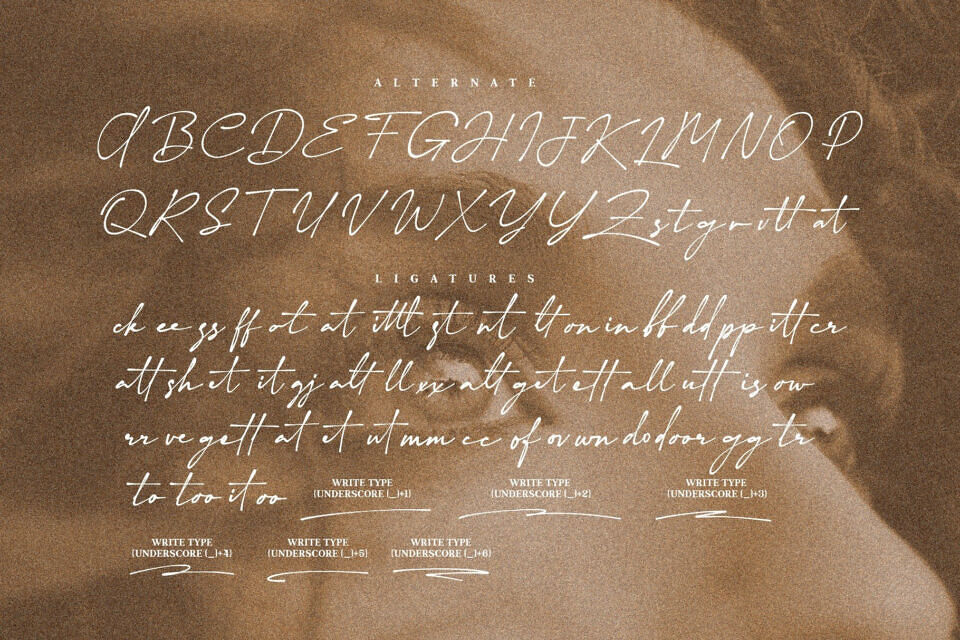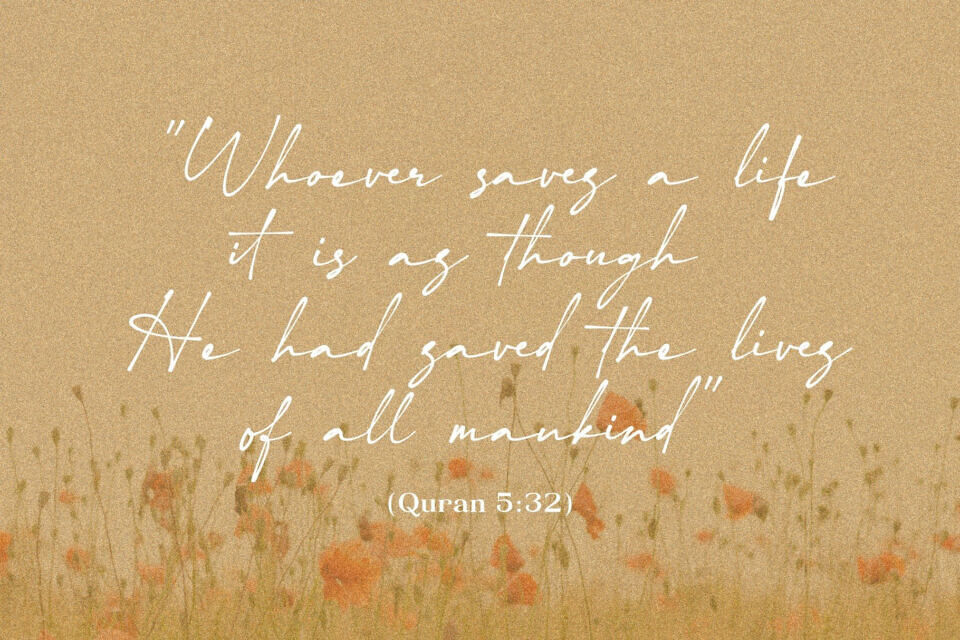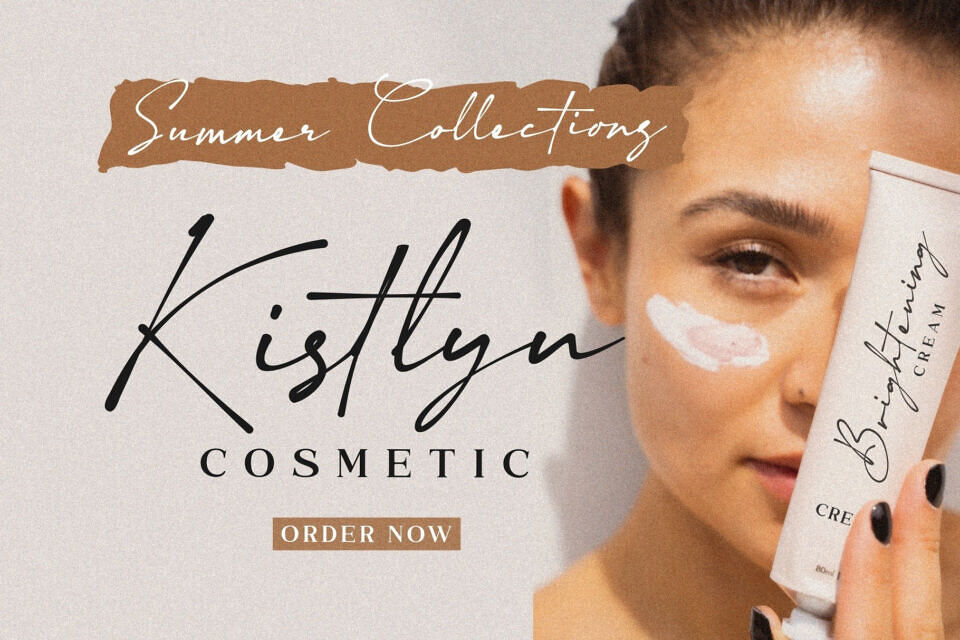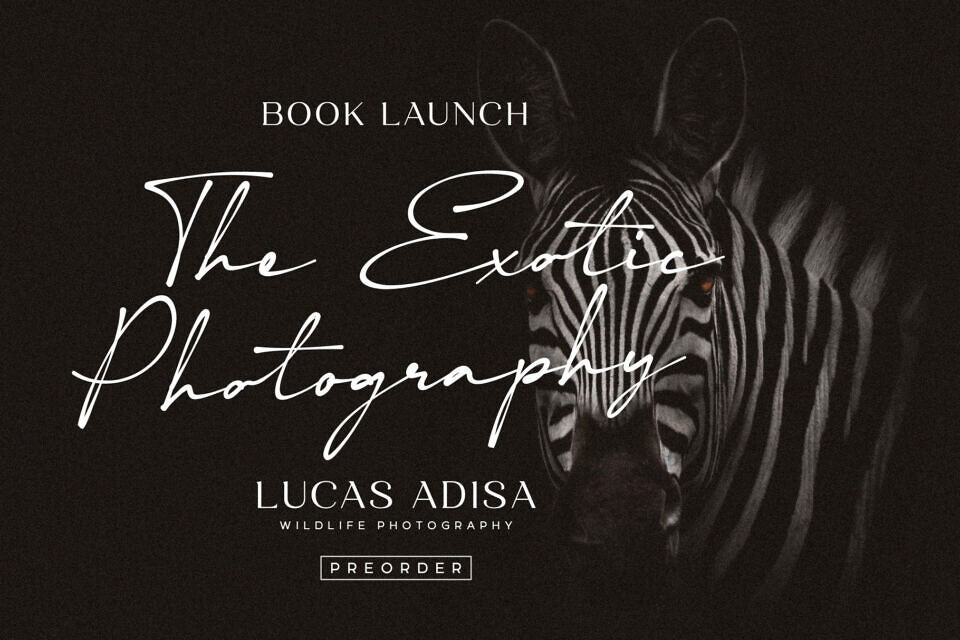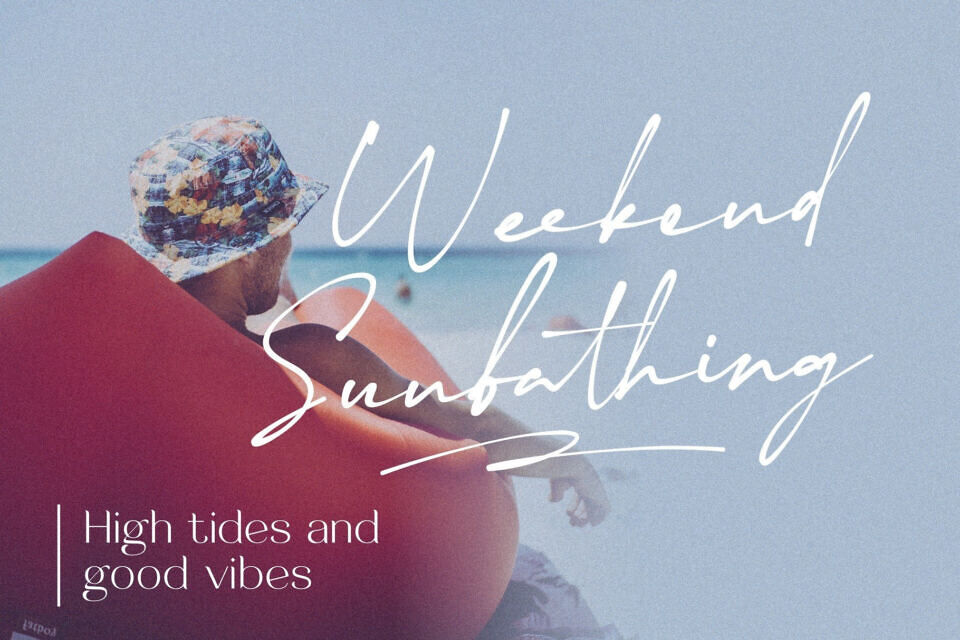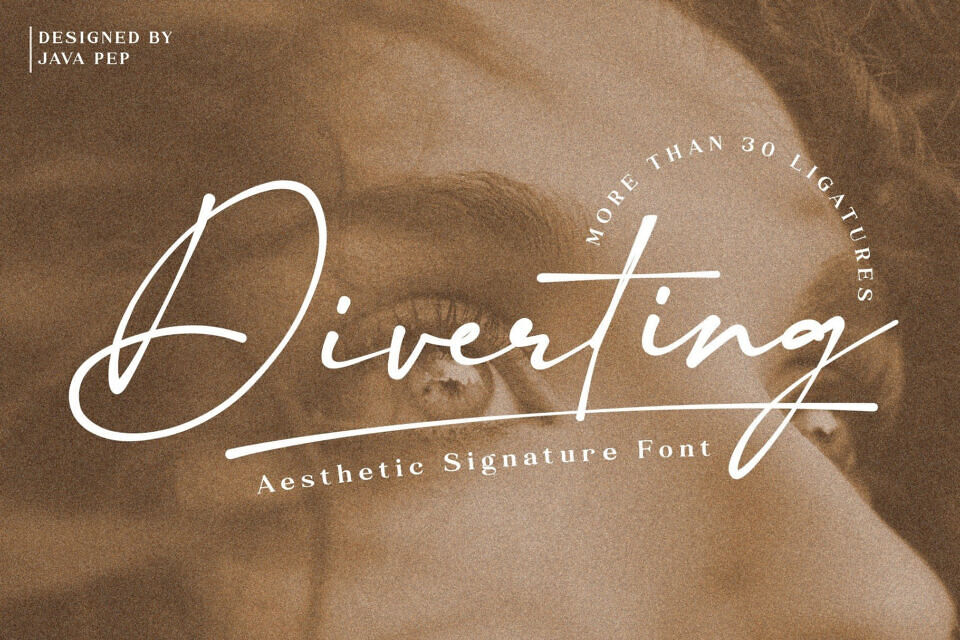
Diverting Font
Diverting is an aesthetic signature font that comes with more than 30 ligatures set so it can feel like a handwritten style vibe. For switching on the swash under line, you can write type “underscore (_) + (plus) and number 1 until 6”.
Diverting font also have alternate subtitutions for uppercase and some lowercase, this font is perfect for branding, advertising, handwritten quotes, social media post, headlines, subtitle, wedding invitations, greeting cards, signature name, logotype, etc.